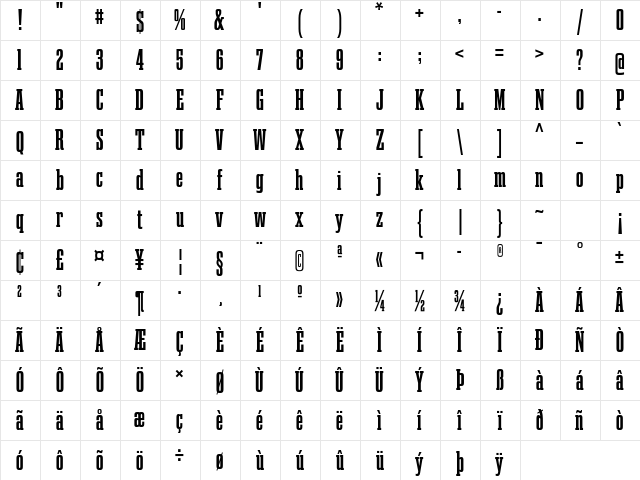
Gravtrac Compressed Bold
Design Context for Gravtrac Typeface
Gravtrac offers clean, dependable letterforms without strong stylistic allegiance, making it a practical choice for designers who need flexibility. Its bold stroke weight gives it real presence on the page.